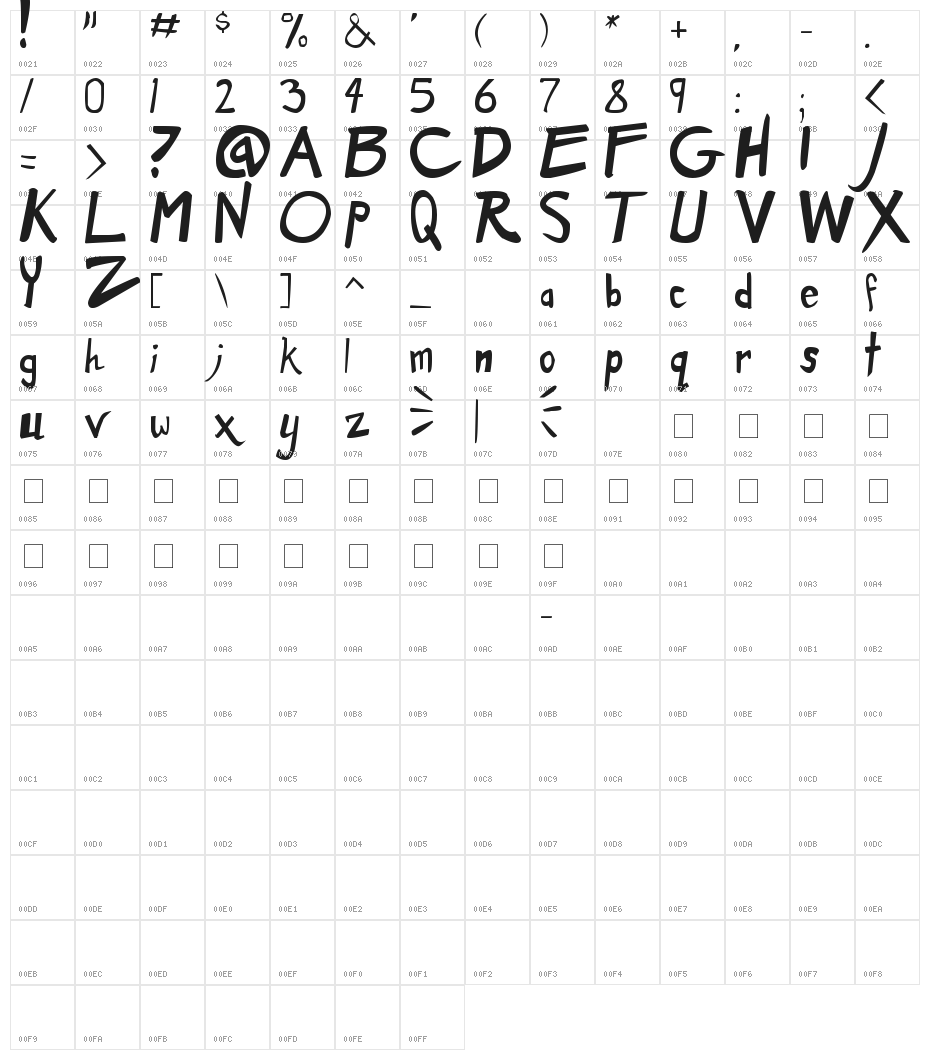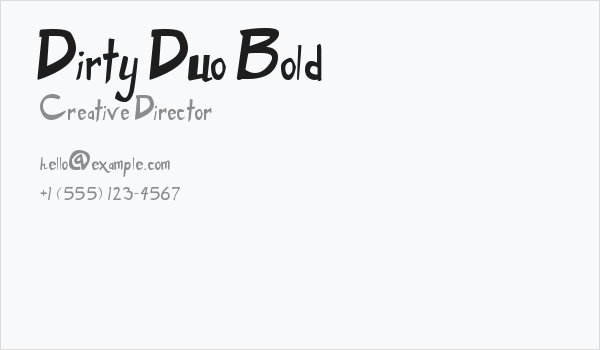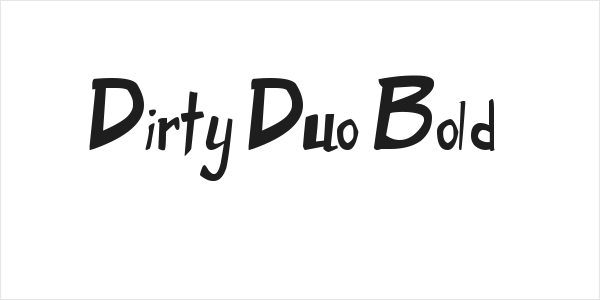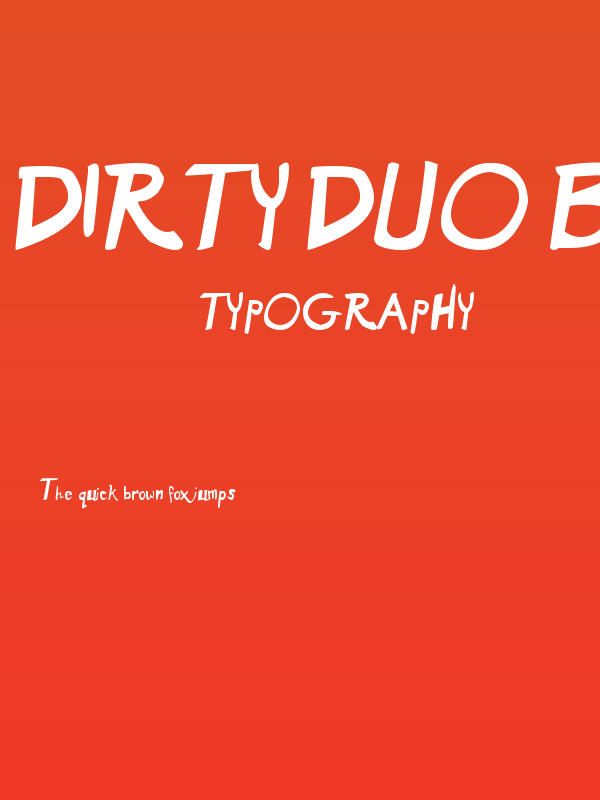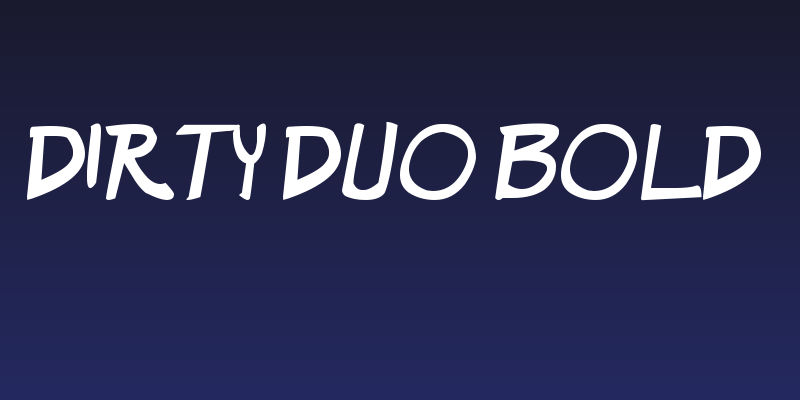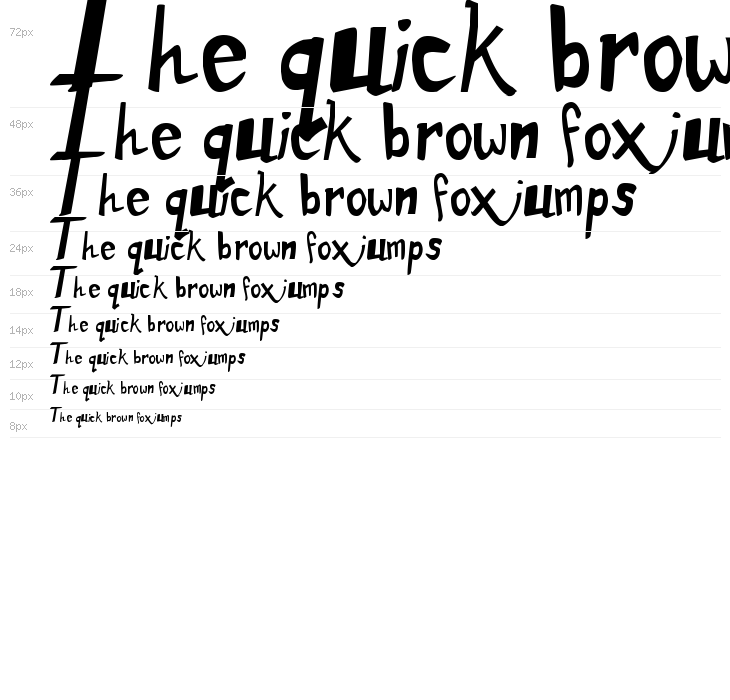
Dirty Duo Bold Font
Dirty Duo Bold Description
This font features a bold and playful style with a hand-drawn appearance. The letters are slightly irregular, giving it a whimsical and casual feel. The uppercase and lowercase letters maintain a consistent flow, with some characters having exaggerated curves and angles. The numbers and special characters follow the same playful design, making it suitable for creative projects. The overall look is dynamic and energetic, perfect for grabbing attention.
| Proposed Projects | Ideal for children's books, playful branding, posters, and creative invitations. |